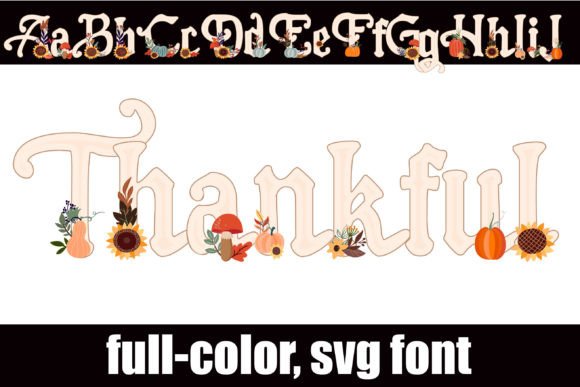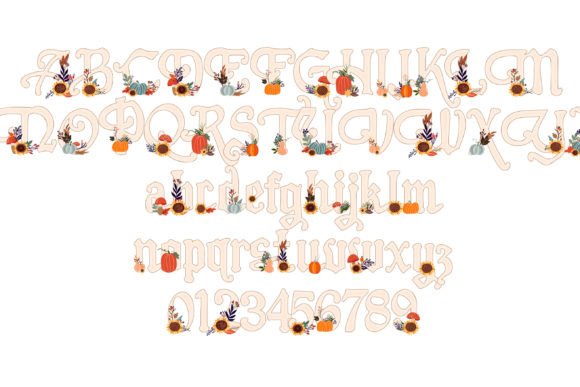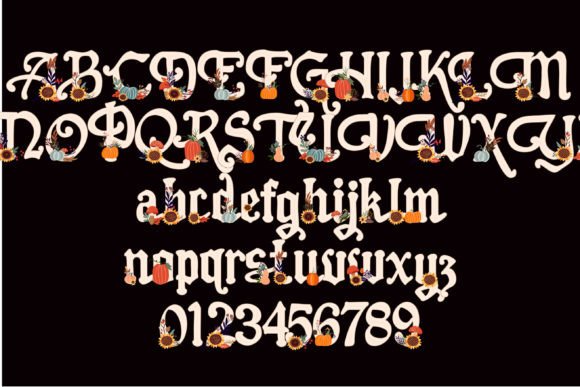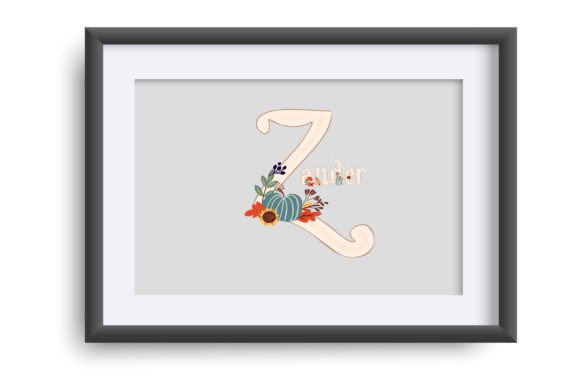
About Thankful Font
Introducing Thankful, a beautiful and intricate calligraphy-style color font designed specifically for the Thanksgiving season. With its heavy-duty strokes and Thanksgiving elements, this font is perfect for adding a touch of elegance and warmth to your holiday crafts and designs.
Whether you’re creating Thanksgiving cards, invitations, posters, or any other festive project, Thankful will enhance your creations and evoke a sense of gratitude and appreciation. The font’s ornate details and intricate swirls bring a touch of sophistication, making it a standout choice for any Thanksgiving-themed design.
As you incorporate Thankful into your holiday crafts and designs, you’ll appreciate its ability to capture the spirit of Thanksgiving and add a touch of elegance and charm to your projects. Let Thankful be a source of inspiration as you express your gratitude and celebrate this special season.